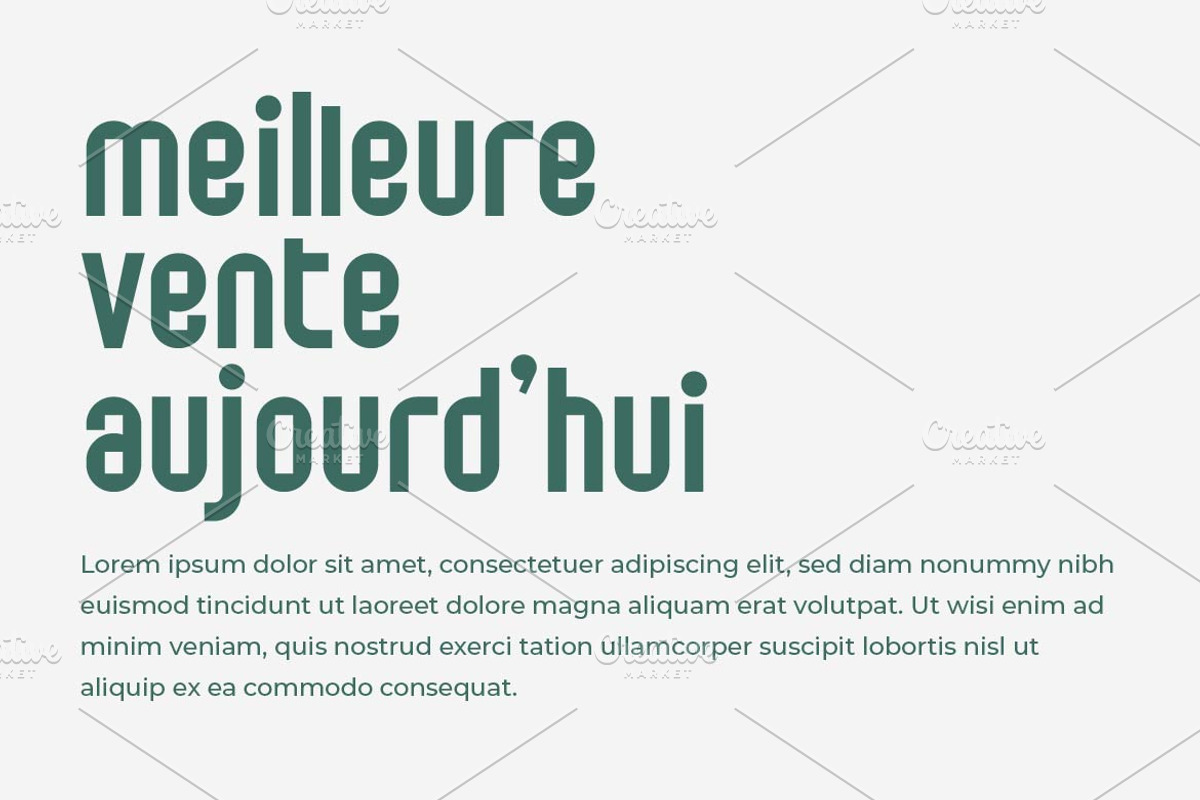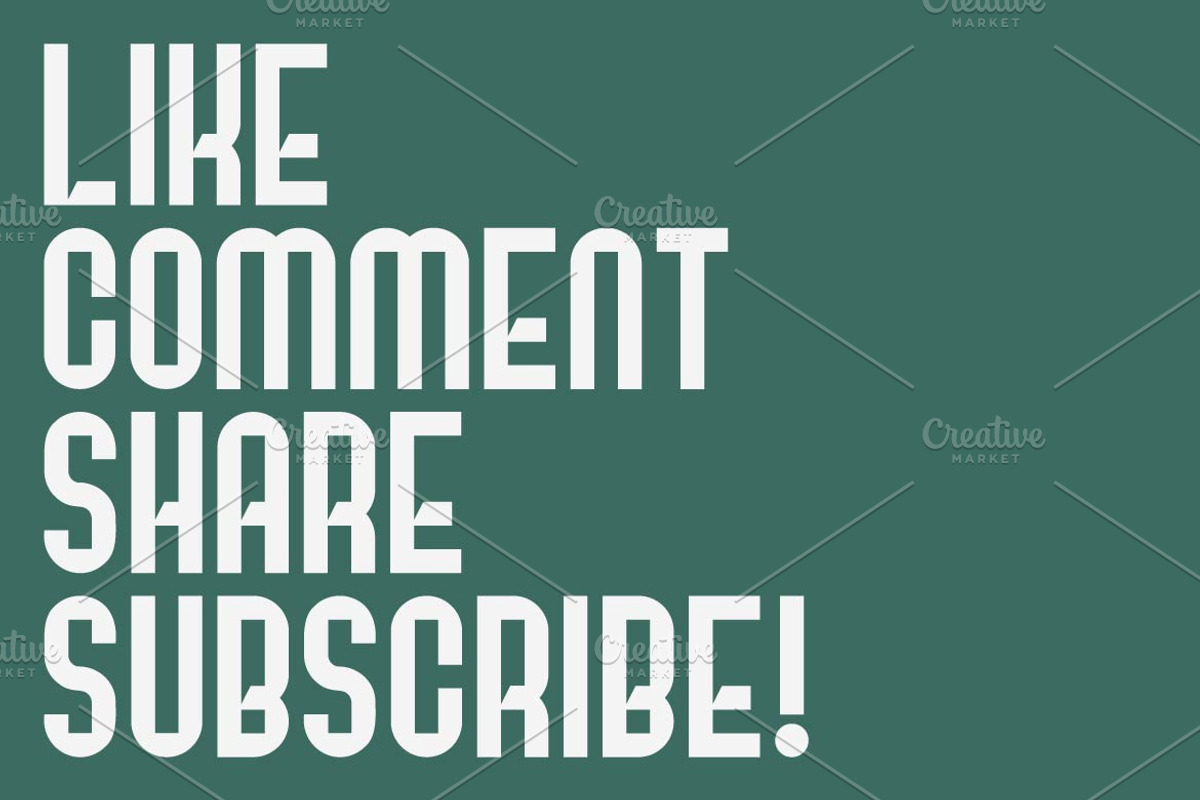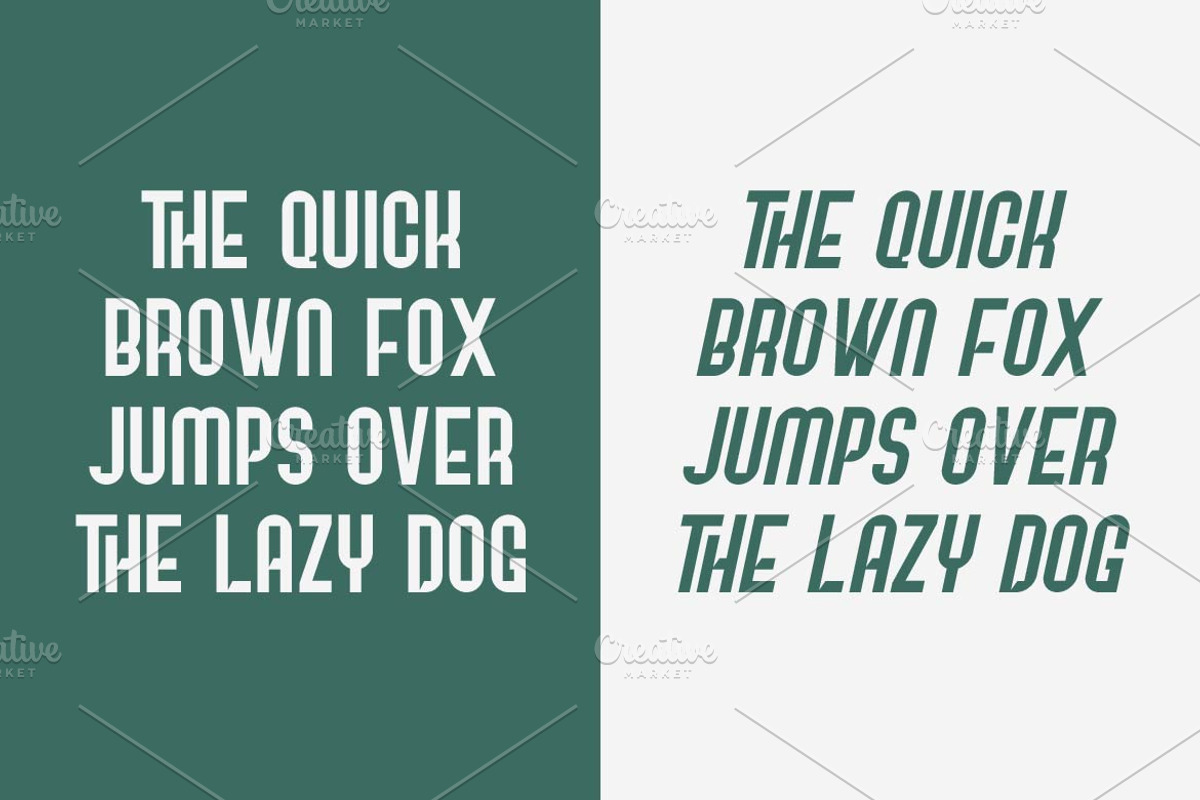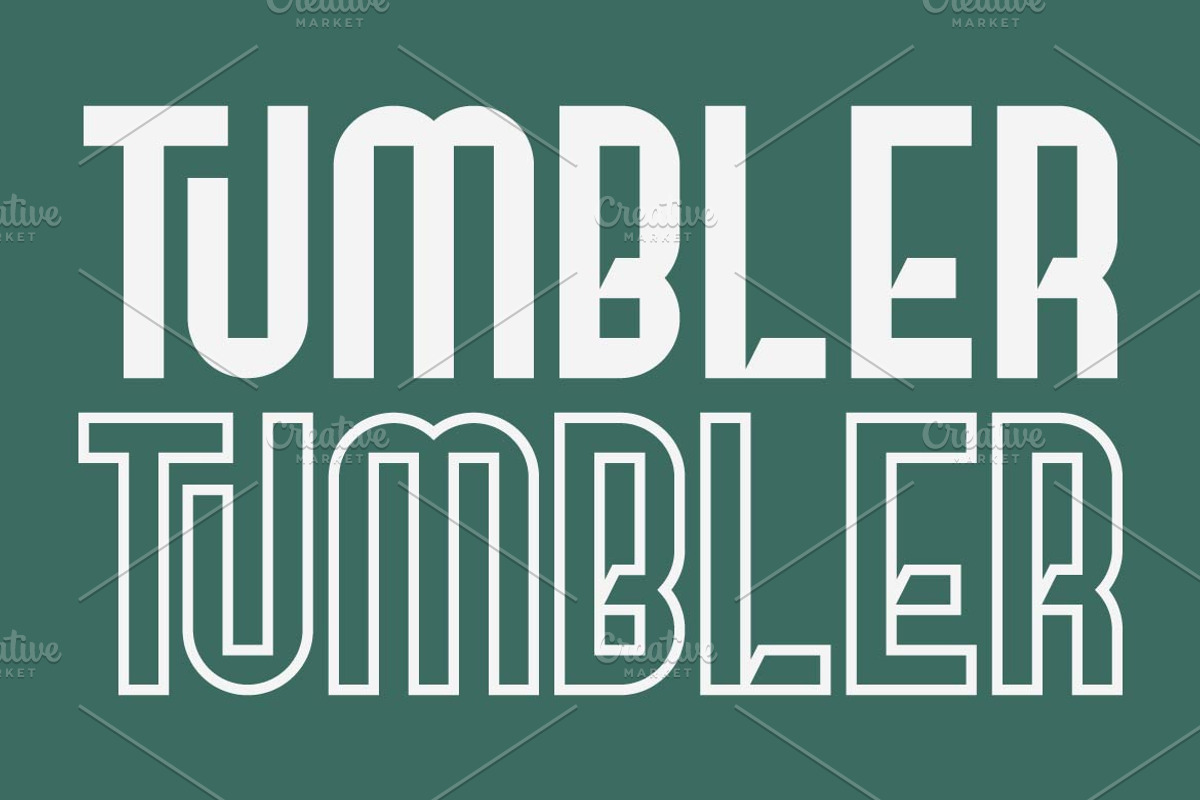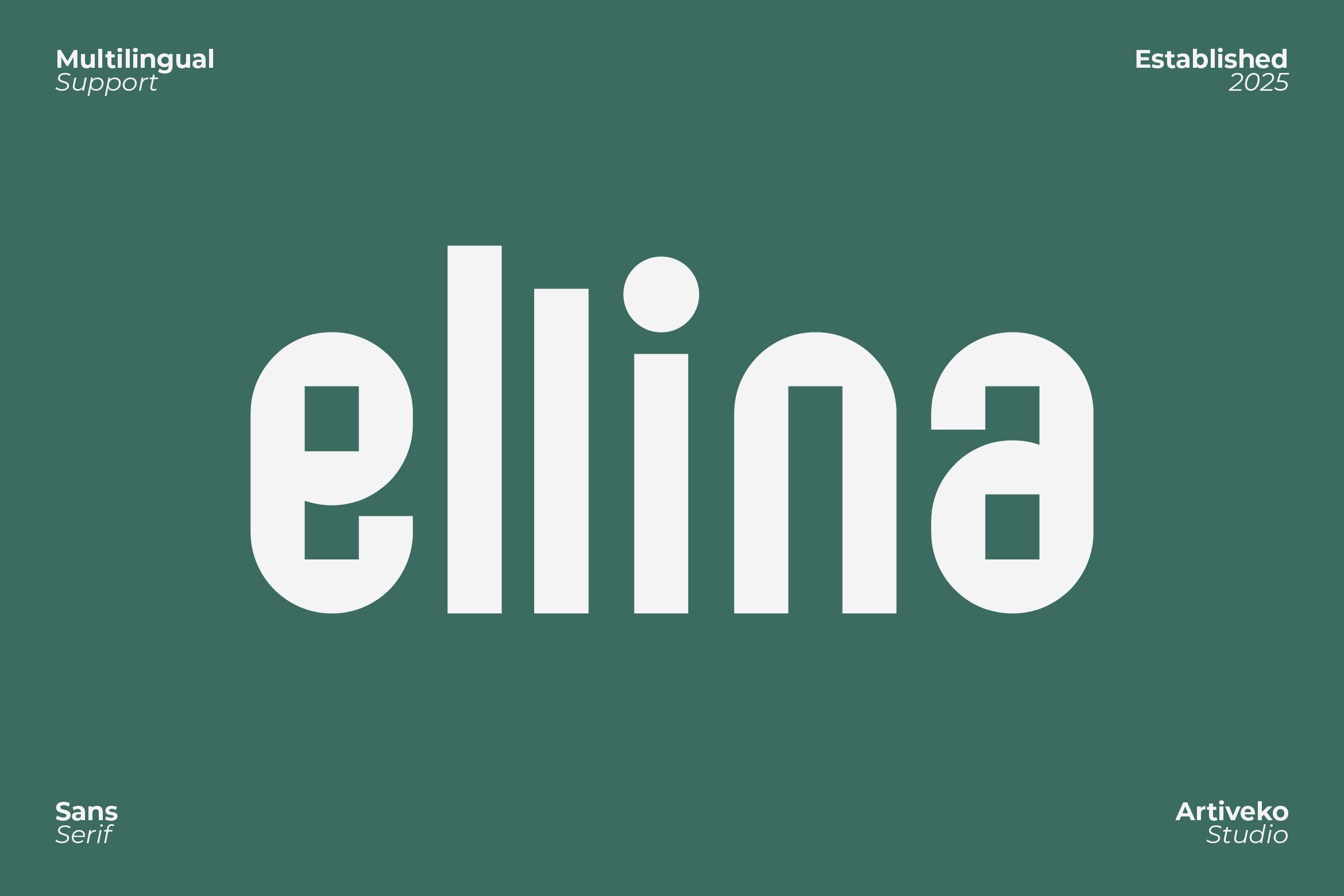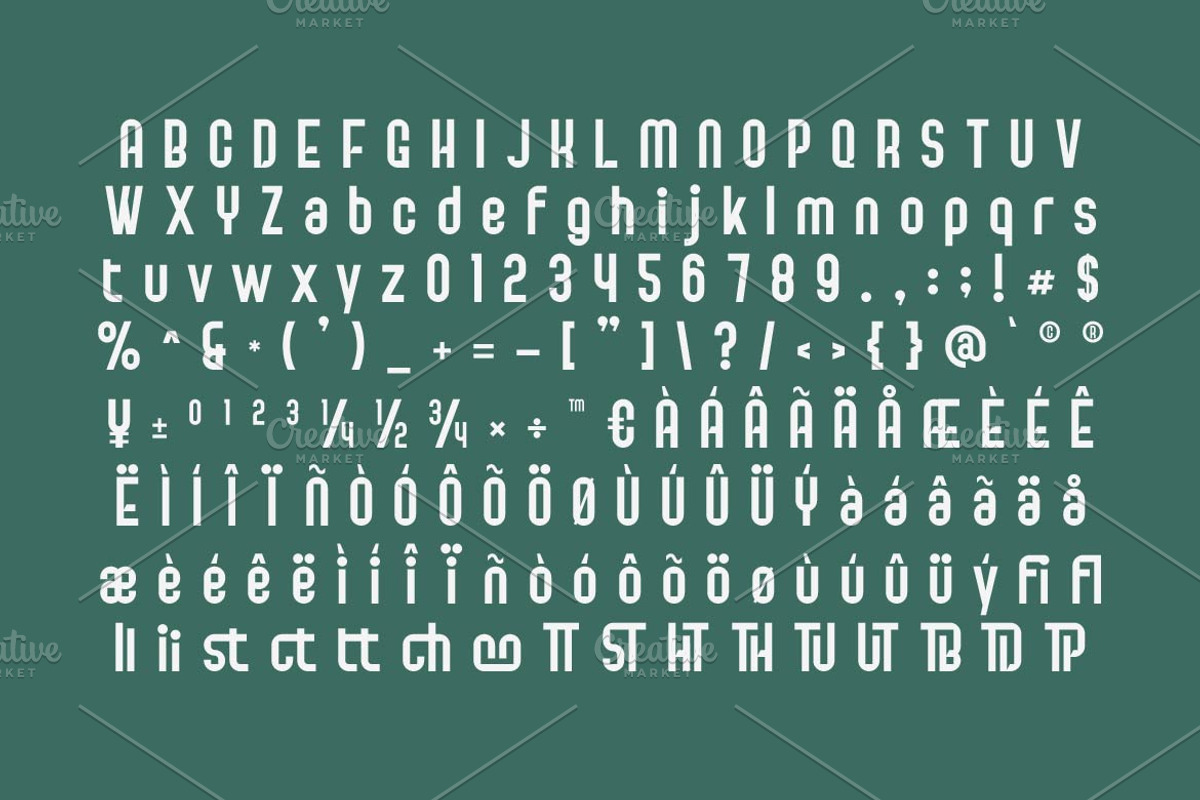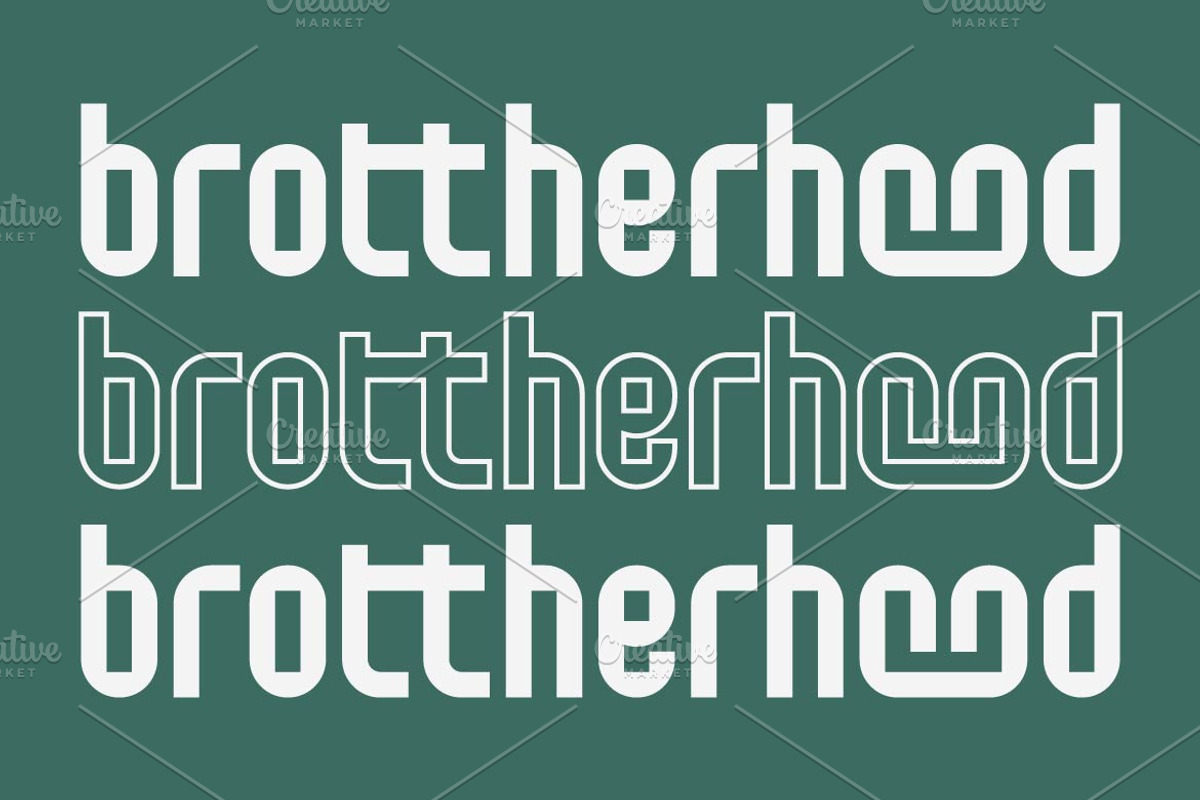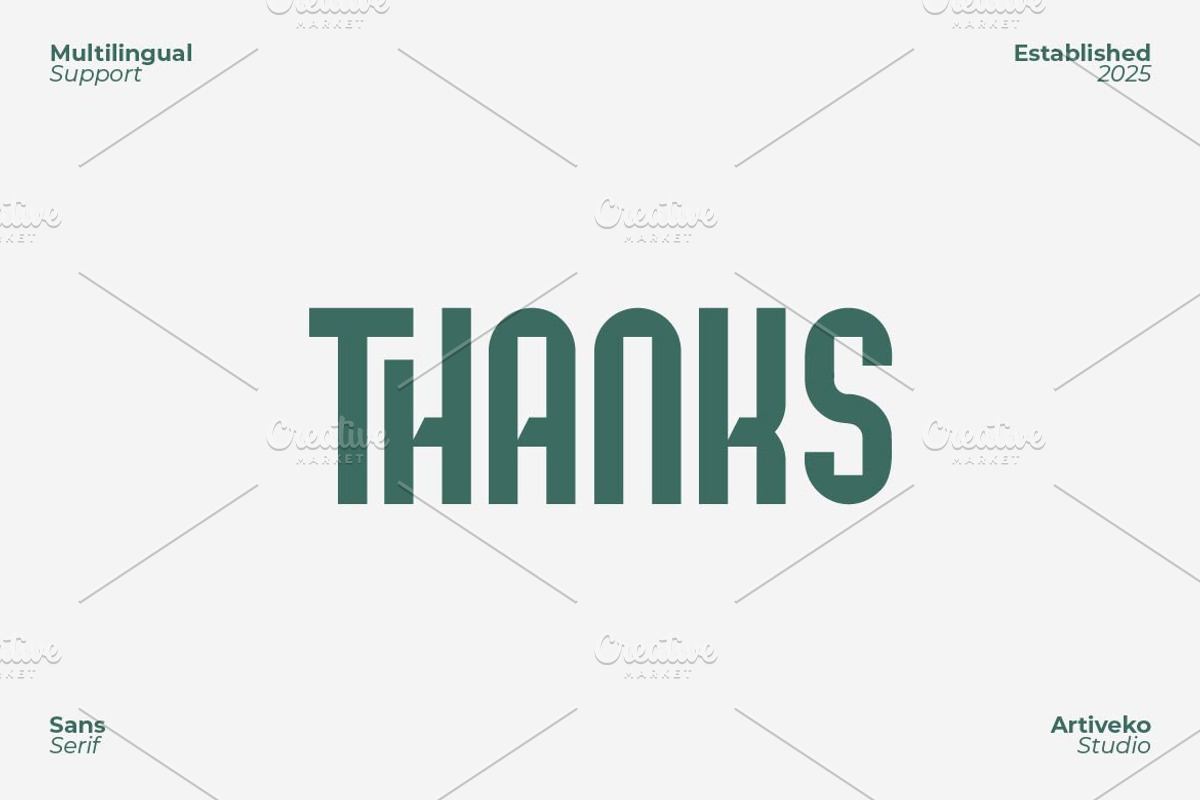
Ellina Minimalist Font
Ellina is a modern sans serif font crafted with clean lines and a minimalist aesthetic. Its balanced letterforms and smooth curves make it perfect for branding, logos, editorial layouts, and digital projects. With multilingual support, ligatures, and alternates, Ellina offers versatility and elegance, making it an excellent choice for projects that require a sleek, contemporary, and professional look.